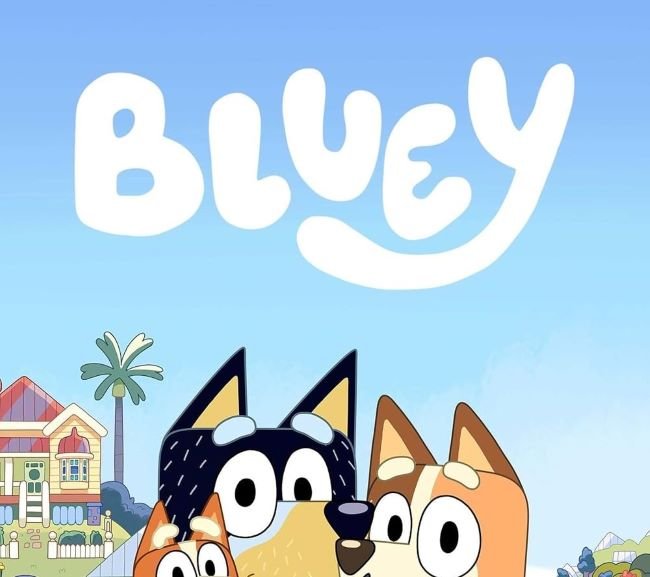
Bluey font — a soft, rounded font brimming with warmth and playful energy — is the typography of the Australian animated series (2018–present) following Blue Heeler puppy Bluey and her family through imaginative everyday adventures that have quietly become one of the most beloved children’s shows on the planet, praised by parents and educators alike for its emotional intelligence and its honest, funny portrayal of family life.
The bouncy, friendly letterforms communicate the show’s essential quality: this is children’s television that respects its audience enough to be genuinely good.